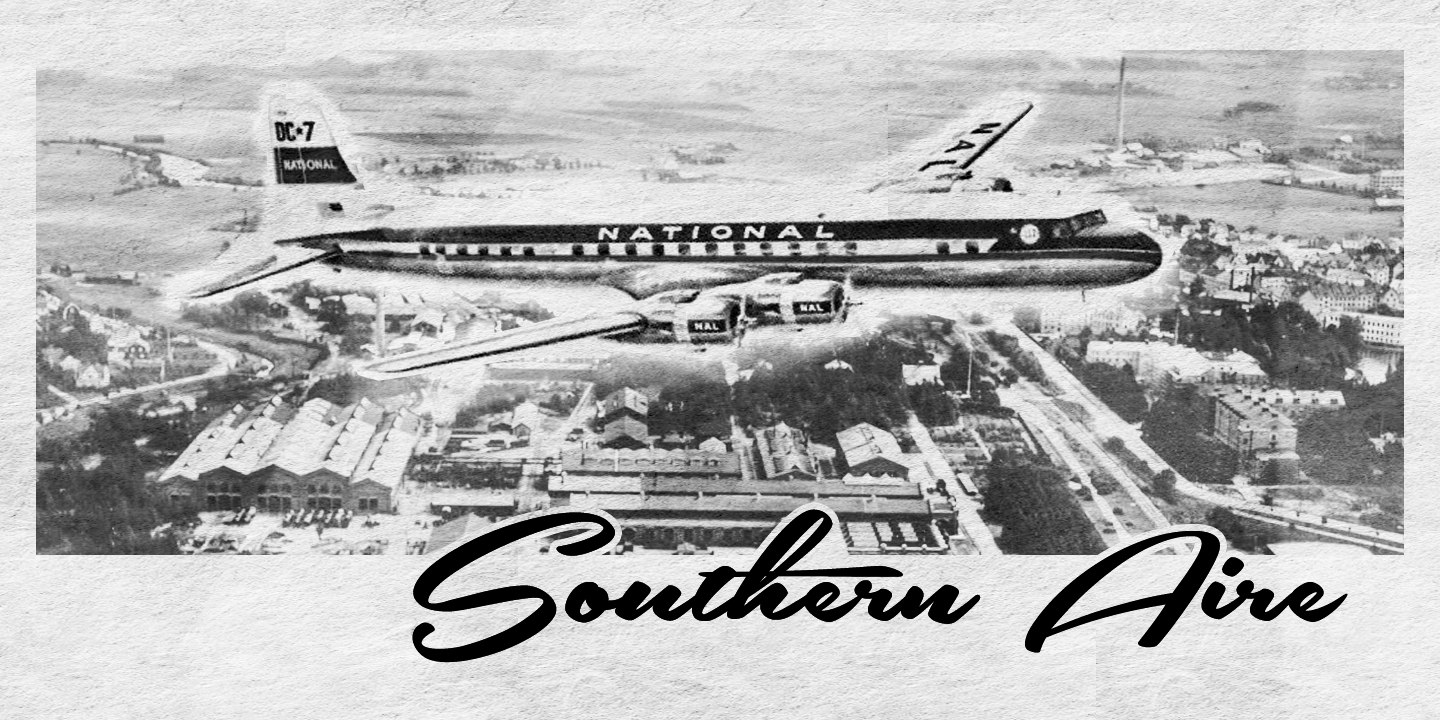
Perfect for hospitality branding, southern restaurant menus, country music promotions, wedding invitations, bourbon and whiskey labels, bed and breakfast marketing, antebellum event themes, and regional tourism campaigns.
This font is exciting because it captures the gracious charm and genteel elegance of Southern hospitality with flowing letterforms that embody warmth, tradition, and the timeless appeal of antebellum sophistication.
Experience the gracious elegance of the American South with Southern Aire Font Free Download, a captivating typeface that embodies the charm, hospitality, and refined traditions of Southern culture. This exceptional font brings the warmth and sophistication of antebellum elegance to contemporary design projects, making it perfect for brands seeking to evoke the timeless appeal of Southern hospitality and genteel refinement.
Southern Aire Font features beautifully flowing letterforms with elegant curves and graceful proportions that immediately evoke the leisurely pace and sophisticated charm of Southern living. The carefully crafted characters combine traditional Southern design elements with modern readability, creating immediate associations with hospitality, warmth, and the refined lifestyle that defines authentic Southern culture and heritage.
The font's remarkable warmth makes it invaluable for hospitality businesses, cultural organizations, and lifestyle brands where conveying genuine warmth and traditional values is essential for building customer loyalty and emotional connections. Whether you're designing marketing materials for Southern-style restaurants that celebrate regional cuisine, creating promotional content for historic plantations and cultural sites, or developing brand identities for luxury hospitality venues, Southern Aire Font delivers the authentic Southern aesthetic that resonates with audiences seeking genuine cultural experiences.
Hospitality professionals and Southern lifestyle brands worldwide choose the Southern Aire Font Free Download for projects requiring regional authenticity and gracious appeal. The font works exceptionally well for bourbon distilleries celebrating Southern craftsmanship, wedding planners specializing in Southern charm celebrations, tourism boards promoting regional heritage, and any business seeking to establish connections with audiences who appreciate Southern traditions and hospitality values.
The comprehensive Southern Aire Font family includes variations that maintain the signature Southern aesthetic while providing design flexibility for diverse hospitality and lifestyle applications. Each character demonstrates exceptional attention to Southern design principles, ensuring the gracious character remains elegant and visually appealing across all sizes, from large-scale welcome signage to detailed menu typography and invitation designs.
This typeface excels in applications where creating atmosphere of warmth and gracious hospitality is crucial for brand success and customer attraction. The flowing letterforms create immediate emotional warmth that eliminates the need for additional decorative elements, allowing the typography itself to communicate Southern charm, traditional values, and the welcoming spirit that defines authentic regional hospitality.
Southern Aire Font's technical excellence ensures optimal performance across both traditional print applications and modern digital platforms common in hospitality and tourism marketing. The distinctive letterforms maintain their gracious appeal when reproduced on various materials, from elegant printed menus to outdoor signage that must welcome visitors with appropriate Southern charm.
The font represents more than typography—it's a celebration of Southern cultural heritage and gracious living traditions, making it invaluable for brands seeking authentic regional connections and hospitality excellence.